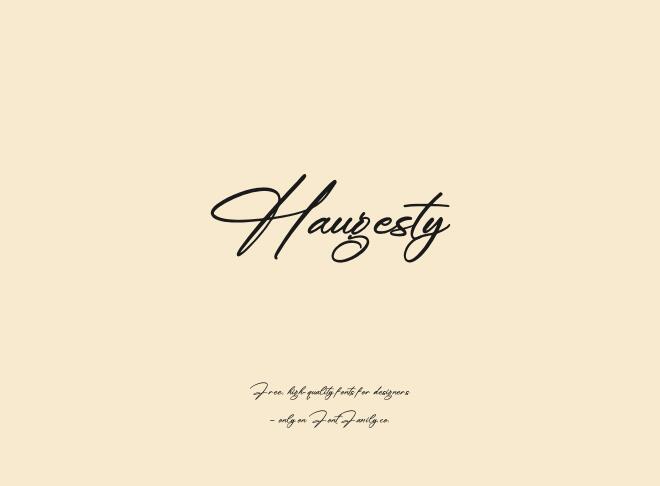
Haugesty Font
Haugesty Font is an elegant, handwritten script font designed by Haugen Type Foundry. It exudes a classic charm with a modern twist, making it perfect for a wide range of design projects. This font is similar to classic script fonts, but its unique flourishes and subtle irregularities set it apart, reflecting the hand of a skilled calligrapher. The elegant, flowing characters of Haugesty Font make it ideal for wedding invitations, branding, and other design projects that require a touch of sophistication. The font is versatile and can be paired with sans serif fonts for a balanced design. The Open Font License allows designers to use it freely, making it a great choice for both personal and commercial projects. With Haugesty Font, you can add a touch of elegance and individuality to your designs.